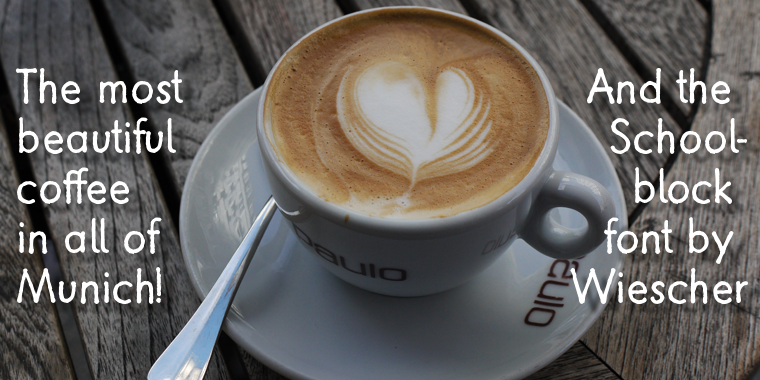
Designed by Gert Wiescher, Schoolblock is a comic and hand drawn font published by Wiescher-Design.
A typeface based off of the German typeface students are taught to imitate when learning to write.